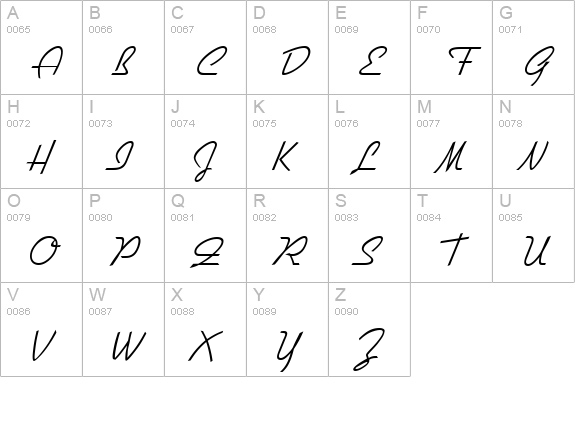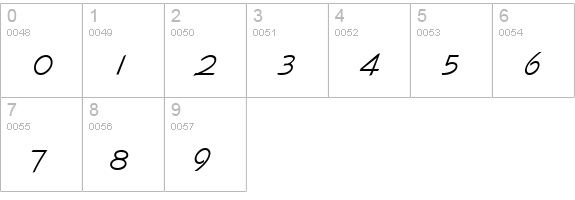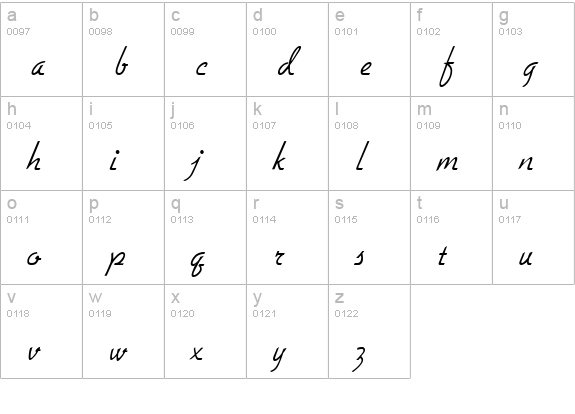
Gillies Regular is the standard, neutral variant in the Gillies typeface family \xE2\x80\x94 well suited to general body text, paragraphs, and standard typographic work.